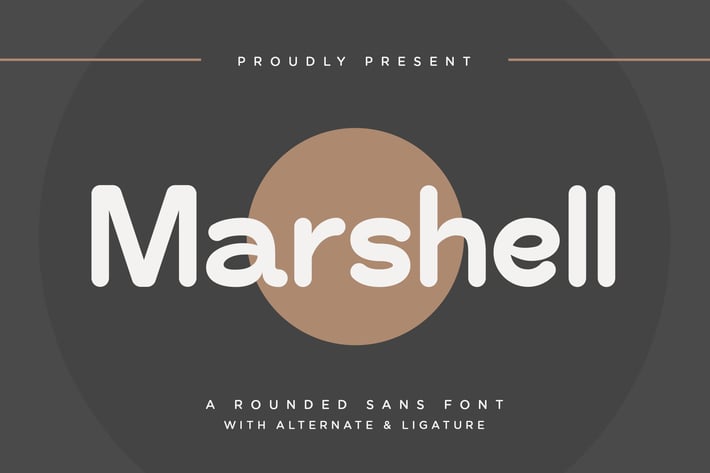
Marshell - A Rounded Sans Font
Introducing "Marshell" - a charming rounded sans font that brings a touch of warmth and friendliness to your designs.
With its soft curves and clean lines, "Marshell" exudes a modern yet approachable vibe, making it perfect for a wide range of applications including branding, headlines, logos, posters, and more.
Embrace the versatility of "Marshell" as it effortlessly enhances your designs with its playful personality and smooth readability.
Step into the world of rounded typography with "Marshell" and add a touch of whimsy to your projects.
– Lowercase
– Ligature
– Alternate
– Multilingual Support